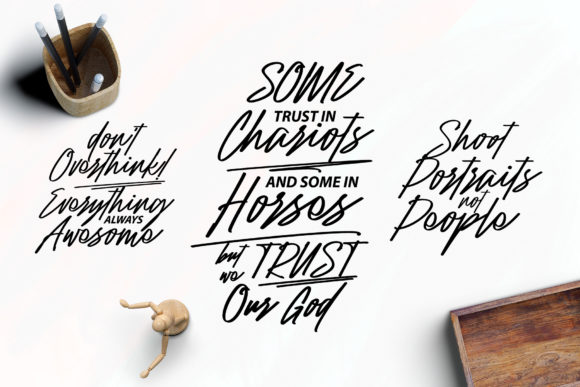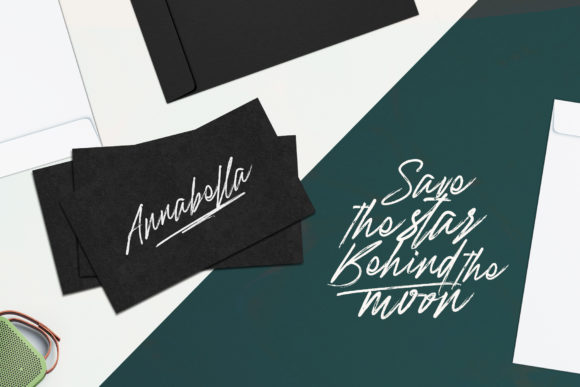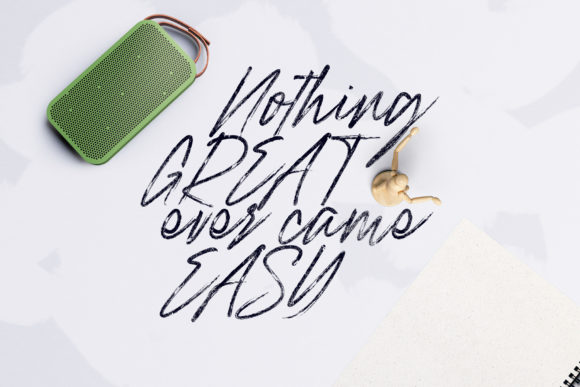
Introduction to Raidden Family Font
Have you ever been stuck in a design project, searching for the perfect font to elevate your creative vision? I know I have. It’s that moment when everything feels incomplete, and you’re not sure what’s missing. But then, you stumble upon a font that changes everything. For me, that font was the Raidden Family Font – a beautiful, light handwritten font that adds a touch of modern sophistication to any design project.
As a designer, I can attest to the value of having a high-quality font like the Raidden Family Font in your toolkit. Not only does it provide a unique and authentic feel, but it also saves you time and effort in the long run. With its transparent background and free download option, this font is a valuable resource for any creative project. Whether you’re working on a branding project, a website design, or a social media campaign, the Raidden Family Font is sure to bring your vision to life.
Key Features of Raidden Family Font
- High-quality design resource for creative projects, offering a unique and elegant touch.
- Transparent background, making it ideal for use on various design elements and backgrounds.
- Available in multiple weights and styles, providing versatility for different design applications.
- Supports multiple languages, making it a great resource for international design projects.
- Includes a comprehensive character set, including uppercase and lowercase letters, numbers, and punctuation marks.
Honest Review: Raidden Family Font
I recently had the chance to work with the Raidden Family Font, and I must say it’s been a game-changer for my creative projects. This font is a design resource that truly delivers, with its high-quality typography that elevates any text to the next level.
What works well with the Raidden Family Font is its versatility. It’s perfect for use in a variety of creative projects, from branding and logos to print materials and digital designs. The font comes in a range of weights, from light to bold, allowing for endless possibilities in terms of design.
The transparent background of this font makes it easy to use with any color scheme or design element, allowing for seamless integration into your design. I’ve also appreciated the fact that the font is available for free download, making it an accessible design resource for designers of all levels.
- High-quality typography
- Range of weights for versatility
⚠️ My only limitation with this font is that it may not be suitable for very small text sizes, as the details can get lost. However, this is a minor issue and doesn’t detract from the overall quality of the font.
Overall, I’m thoroughly impressed with the Raidden Family Font. It’s a high-quality design resource that has been a valuable addition to my design arsenal. I would highly recommend it to anyone looking for a reliable and versatile font for their creative projects. ✨
For the best results, use the Raidden Family Font in conjunction with a high-quality image or background. Experiment with different font sizes and styles to create a unique look.
The Raidden Family Font is ideal for creative projects, such as brochures, flyers, and business cards. It’s also great for designing presentations, documents, and websites.
The Raidden Family Font has a transparent background, making it ideal for designing with a clear or gradient background. This feature allows you to easily place the font over any image or color, giving you more creative freedom for your design projects.